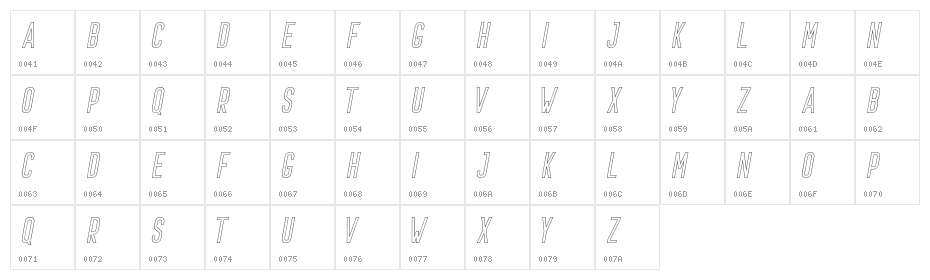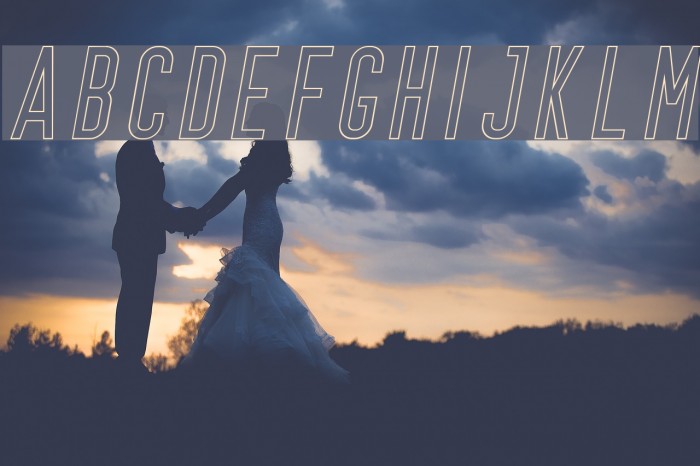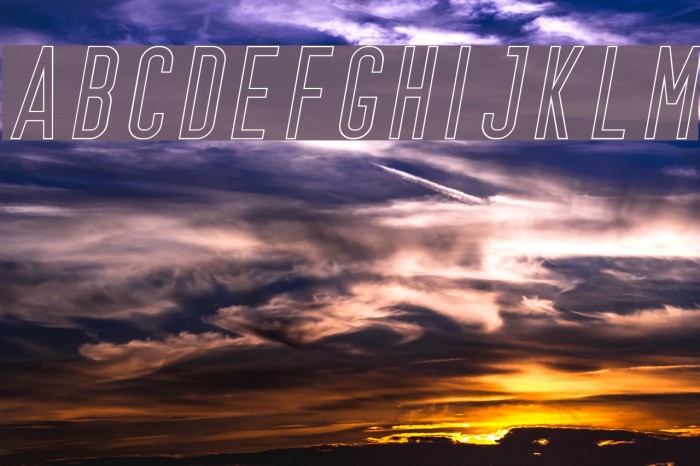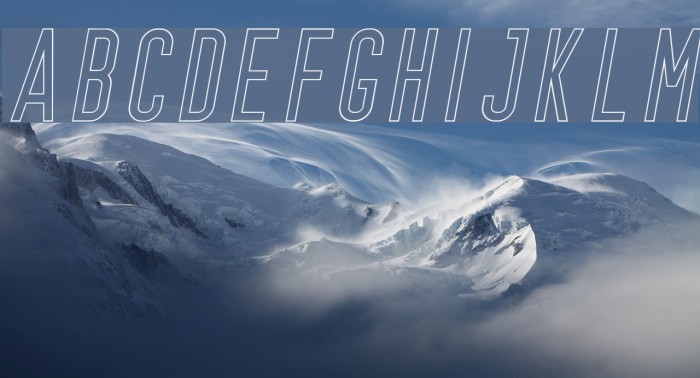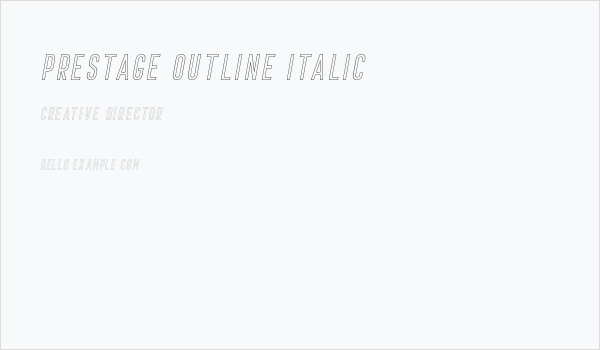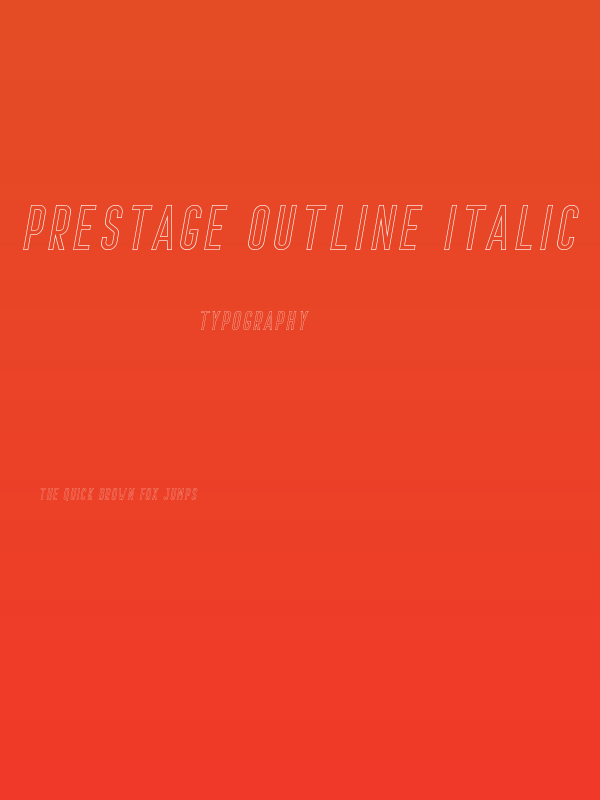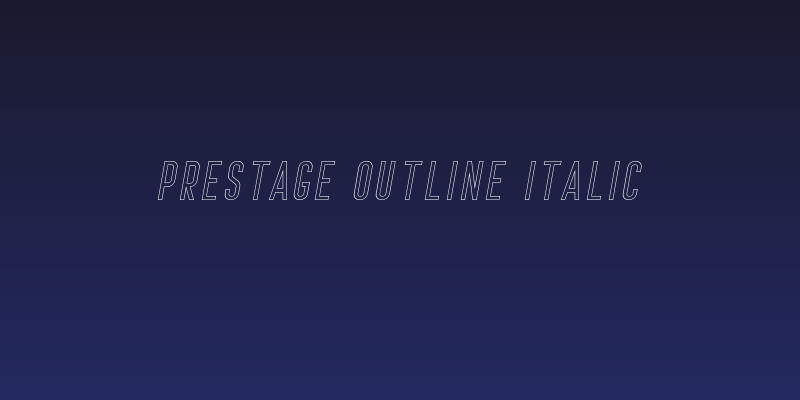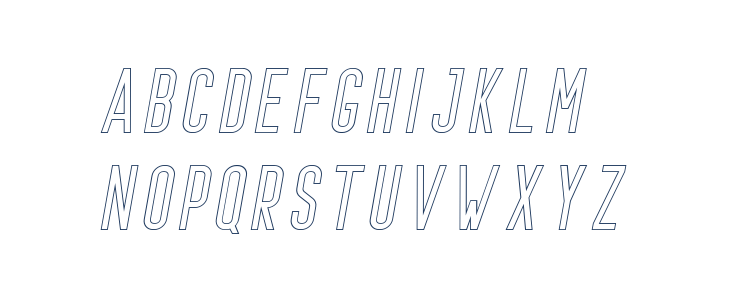
Prestage Outline Italic Font
Prestage Outline Italic Description
This font features a modern, outlined style with a distinct italic slant, giving it a dynamic and forward-moving appearance. The characters are uppercase, with clean lines and a geometric structure, creating a sense of precision and clarity. The outline design adds a unique touch, making it stand out for creative projects. The spacing between characters is consistent, providing a balanced look that is both stylish and readable. This font is ideal for projects that require a contemporary and eye-catching aesthetic.
| Proposed Projects | Ideal for branding, posters, headlines, and any design requiring a modern and distinctive look. |